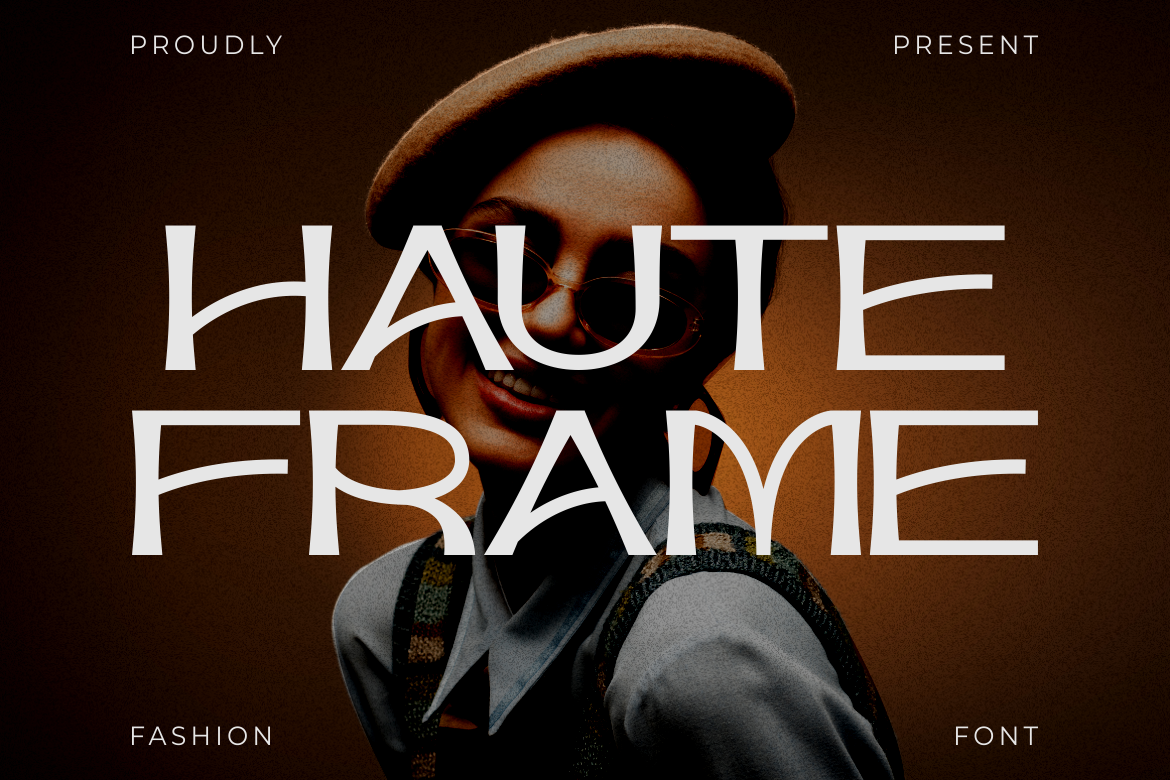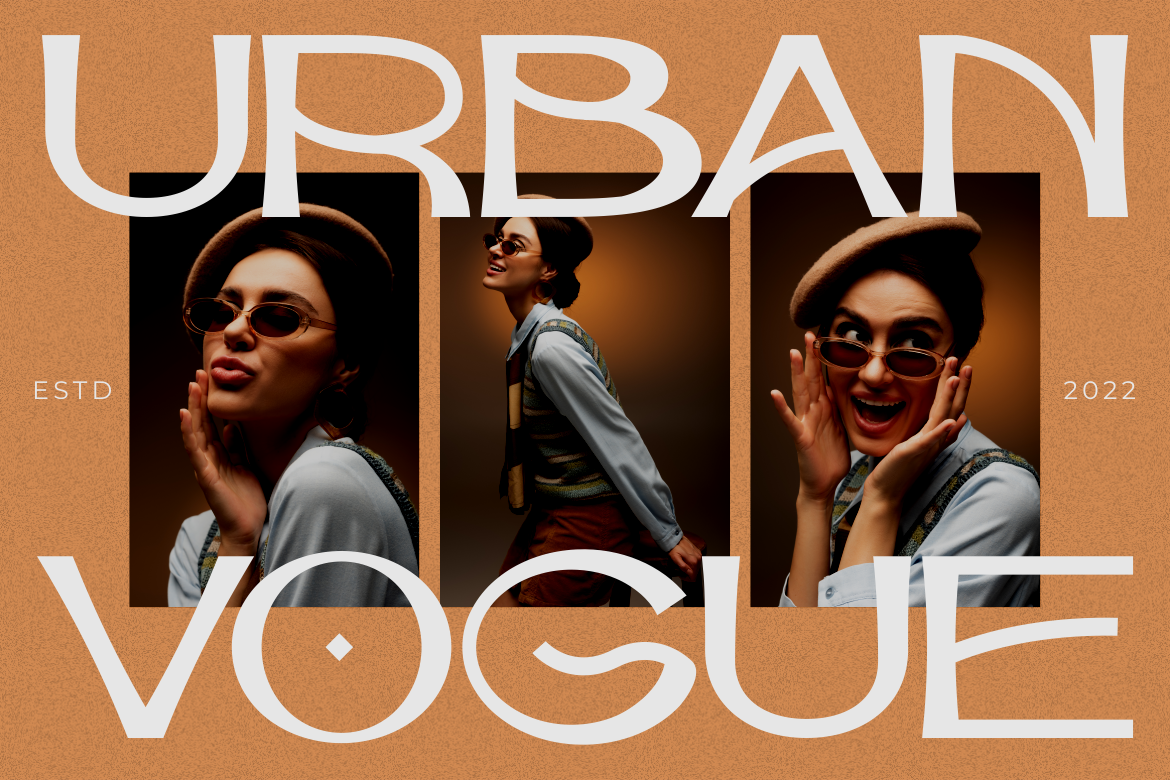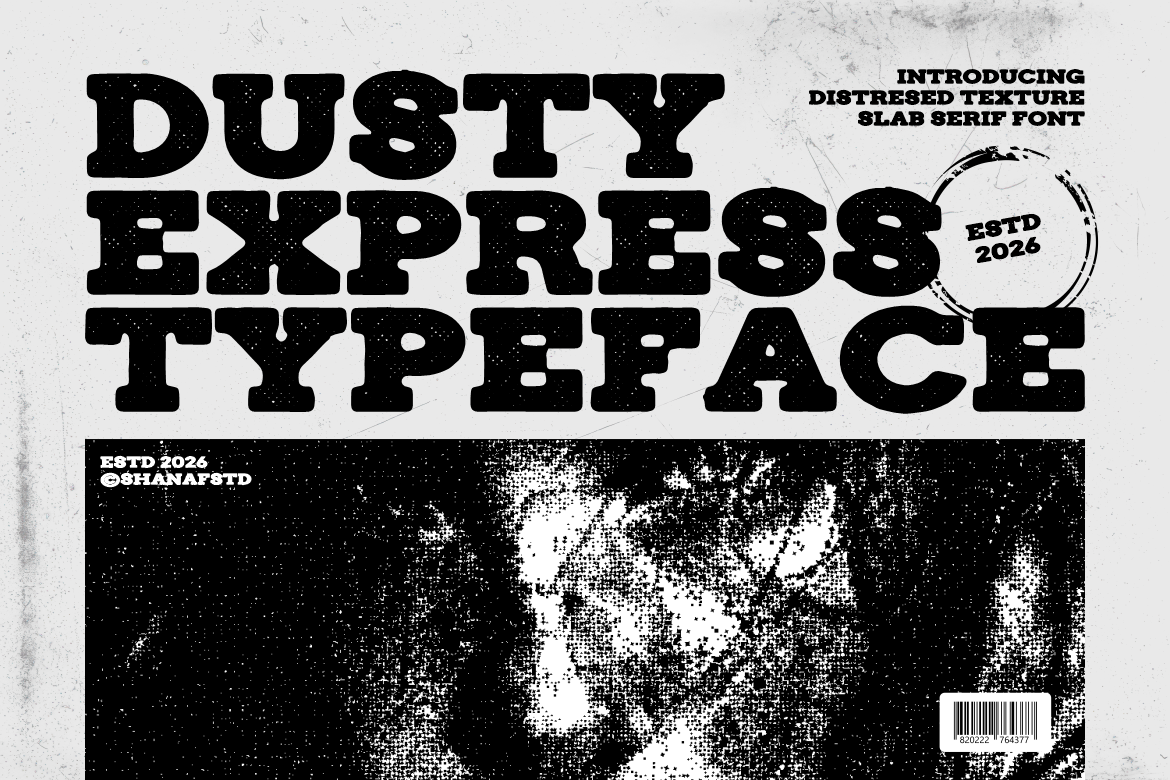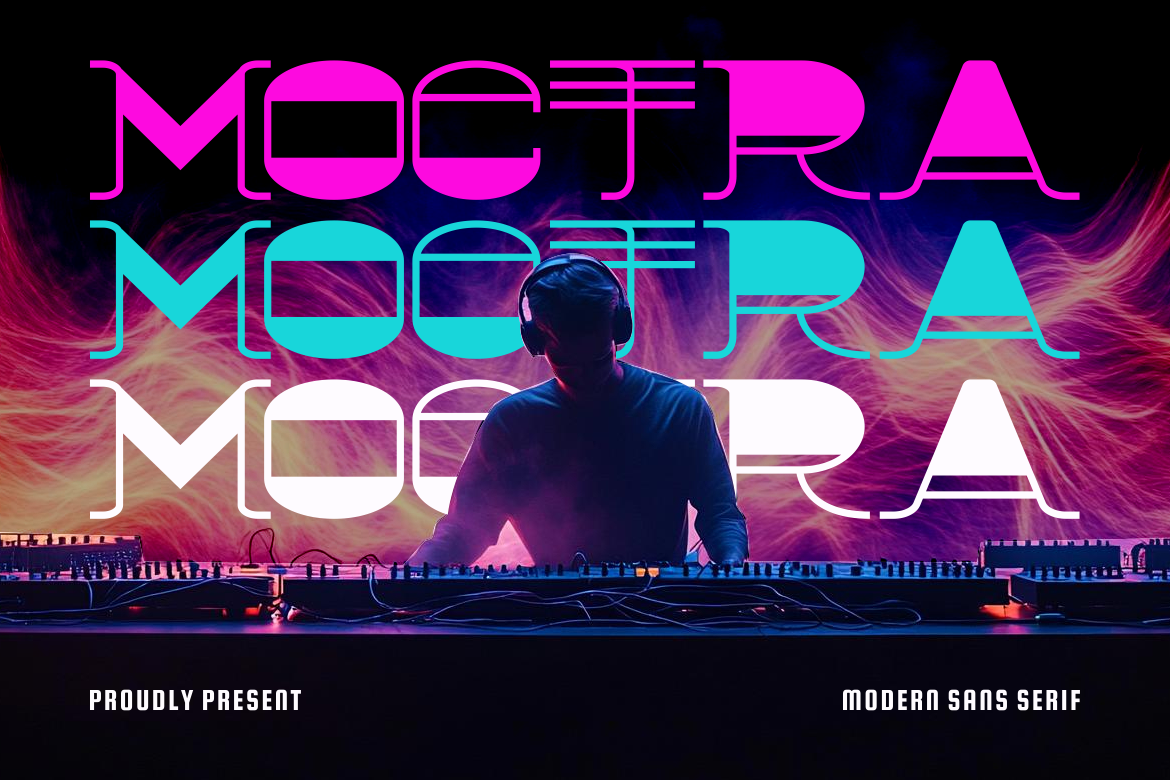
10 Best Funky Fonts That Will Dominate Creative Design in 2026
Typography is becoming more expressive than ever, and funky fonts are leading that transformation. Instead of relying on minimal, neutral typefaces, designers are embracing playful, bold, experimental, and personality-driven typography that immediately captures attention. Funky fonts combine influences from retro graphics, psychedelic art, Y2K aesthetics, bubble lettering, futuristic visuals, and editorial typography to create unforgettable brand experiences.
Today’s brands compete for attention across social media, digital advertising, websites, product packaging, and entertainment platforms. A distinctive font can become one of the strongest visual assets in a brand identity. Whether you’re creating a fashion label, gaming startup, music festival, lifestyle product, or Gen Z marketing campaign, choosing a funky font helps communicate originality and creativity.
The popularity of expressive typography continues to grow because modern audiences value authenticity and memorable visual storytelling. Rather than blending in, brands increasingly want typography that becomes part of the experience itself.
In this guide, we’ll explore ten outstanding funky fonts that can help elevate branding projects across multiple creative industries.
Initial Suggestion
Before choosing a funky font, think about your audience rather than simply following trends.
Match Typography With Your Brand Personality
Different funky styles communicate different emotions.
Examples:
• Bubble fonts create fun and friendliness.
• Psychedelic fonts communicate creativity.
• Futuristic fonts suggest innovation.
• Rough textured fonts create authenticity.
• Editorial serif fonts add sophistication.
Use Funky Fonts Strategically
Display fonts work best for:
• Logos
• Headlines
• Posters
• Packaging
• Social media graphics
• Merchandise
Avoid using expressive fonts for long paragraphs.
Create Contrast
Pair funky display fonts with clean supporting fonts to improve readability while preserving personality.
Think About Long-Term Branding
The strongest typography trends are memorable because they reinforce a brand rather than simply decorating it.
1. Moctra – Electro Font
Moctra represents futuristic funky typography at its finest. Inspired by digital culture, cyber aesthetics, and electronic music, it combines sharp geometry with modern visual rhythm. The font immediately creates a sense of innovation while remaining surprisingly versatile. Designers can use it to build memorable branding systems for technology companies, gaming projects, AI startups, or electronic music festivals. Its distinctive character allows brands to stand out without sacrificing professionalism.
Pros
• Futuristic visual identity
• Strong geometric design
• Highly memorable
• Excellent digital appearance
• Gaming
• Technology startups
• Electronic music
• AI branding
• Digital products
• Cyberpunk themes
2. Haute Frame – Fashion Font
Haute Frame blends funky editorial aesthetics with luxury fashion typography. Instead of relying on traditional elegance, it introduces bold stylistic details that feel contemporary and artistic. The result is a typeface that performs beautifully across fashion campaigns, luxury branding, magazine layouts, and beauty products.
Pros
• Elegant editorial personality
• Fashion-forward design
• Excellent luxury branding
• Sophisticated appearance
• Fashion brands
• Editorial magazines
• Beauty products
• Luxury packaging
• Lifestyle branding
• Social campaigns
3. Dusty Express – Rough Texture Font
Dusty Express introduces handcrafted rough textures that give designs personality and authenticity. The imperfect finish makes brands feel human rather than corporate. It performs exceptionally well in artisan branding, streetwear, coffee packaging, outdoor products, and creative merchandise.
Pros
• Authentic handcrafted look
• Strong texture
• Bold personality
• Excellent packaging appeal
• Streetwear
• Coffee brands
• Outdoor products
• Artisan businesses
• Merchandise
• Posters
4. Vexorium – Modern Experimental Font
Vexorium is built for designers who want to challenge conventional typography. The experimental geometry creates bold compositions that immediately attract attention while maintaining excellent branding flexibility. It works perfectly for agencies, creative studios, technology brands, and digital products.
Pros
• Experimental architecture